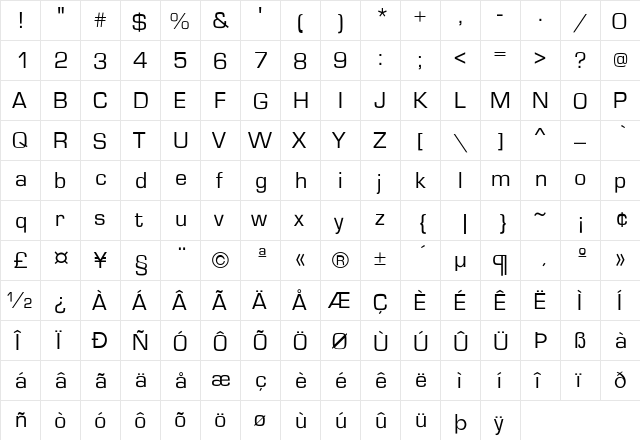
Eurostile-Normal Regular
Design Context for Eurostile-Normal Typeface
Eurostile-Normal offers clean, dependable letterforms without strong stylistic allegiance, making it a practical choice for designers who need flexibility.